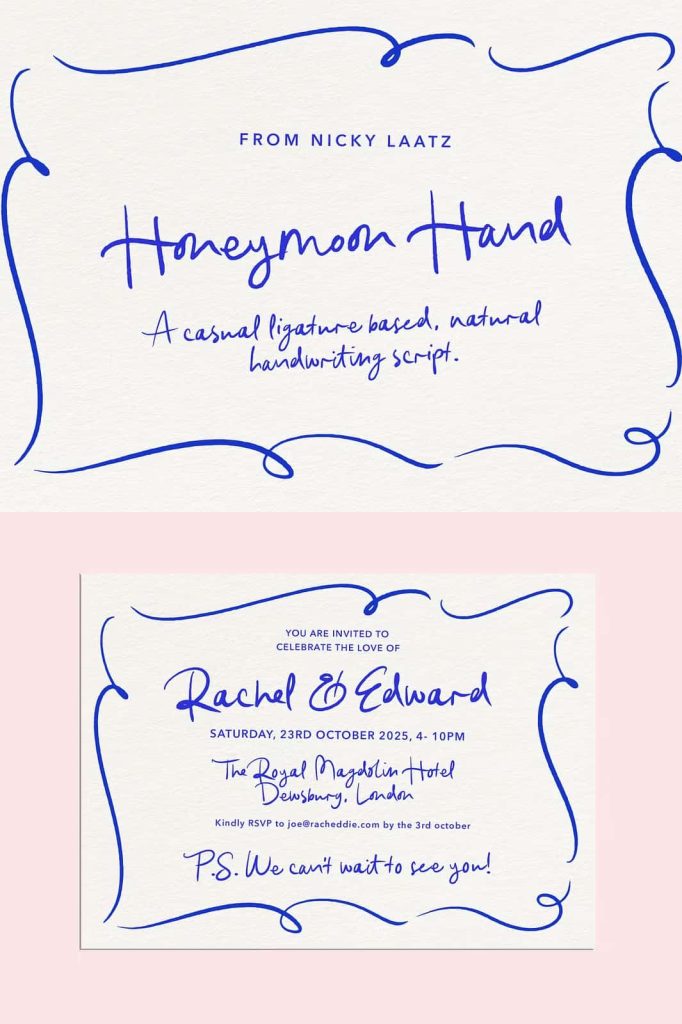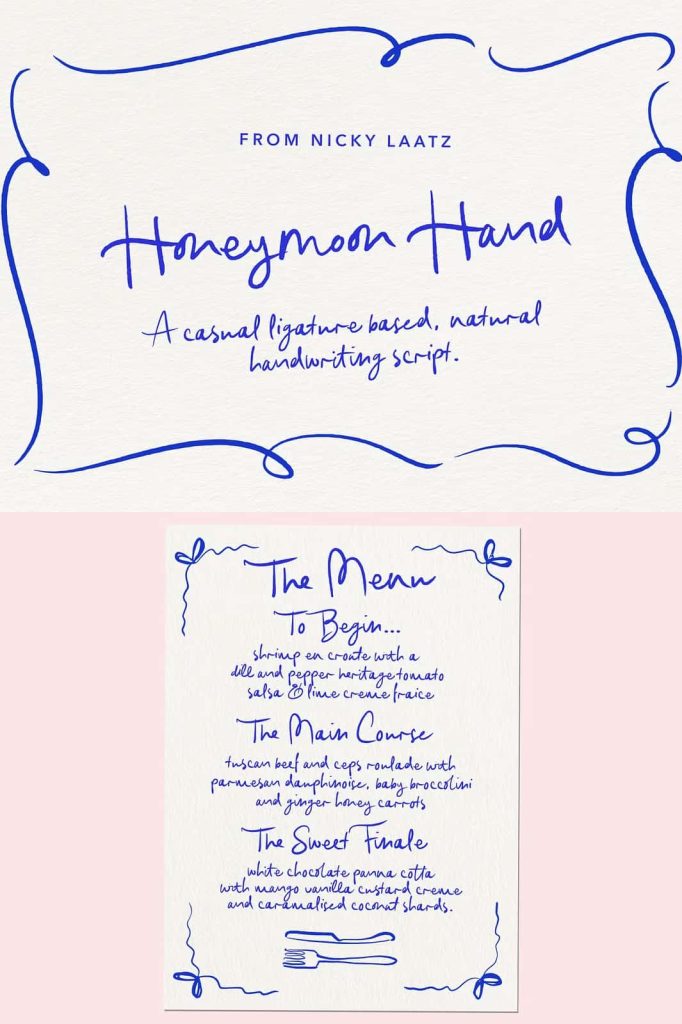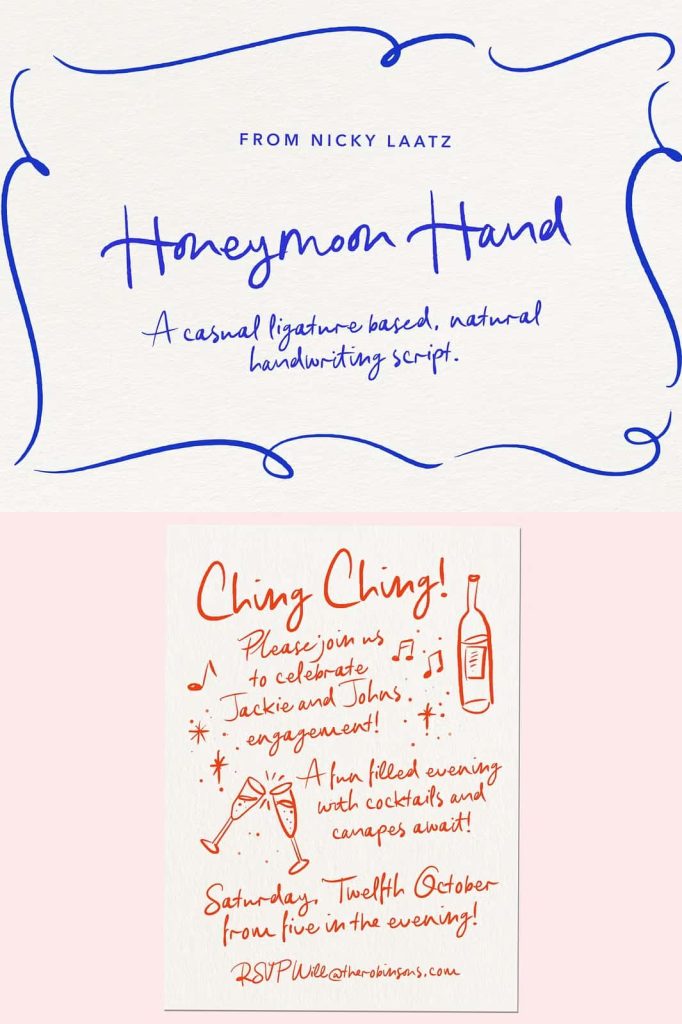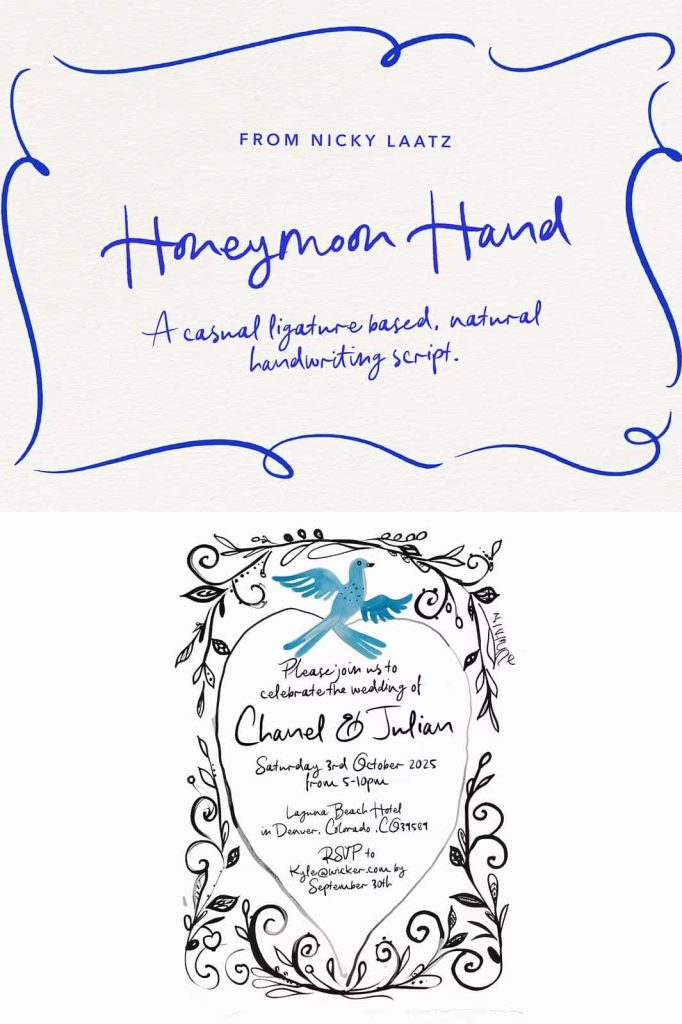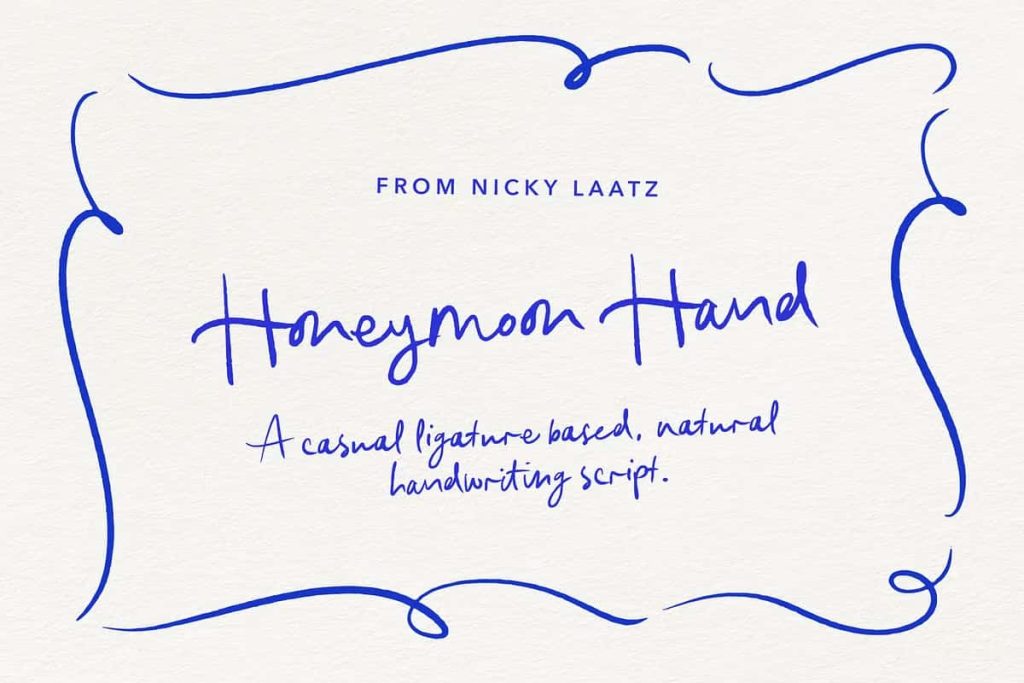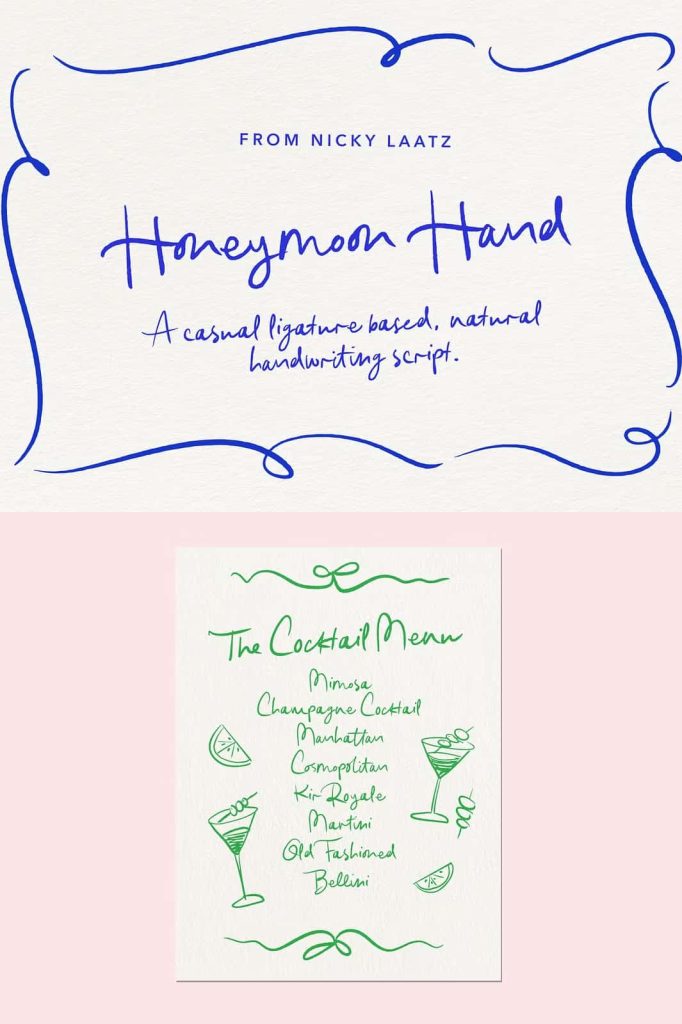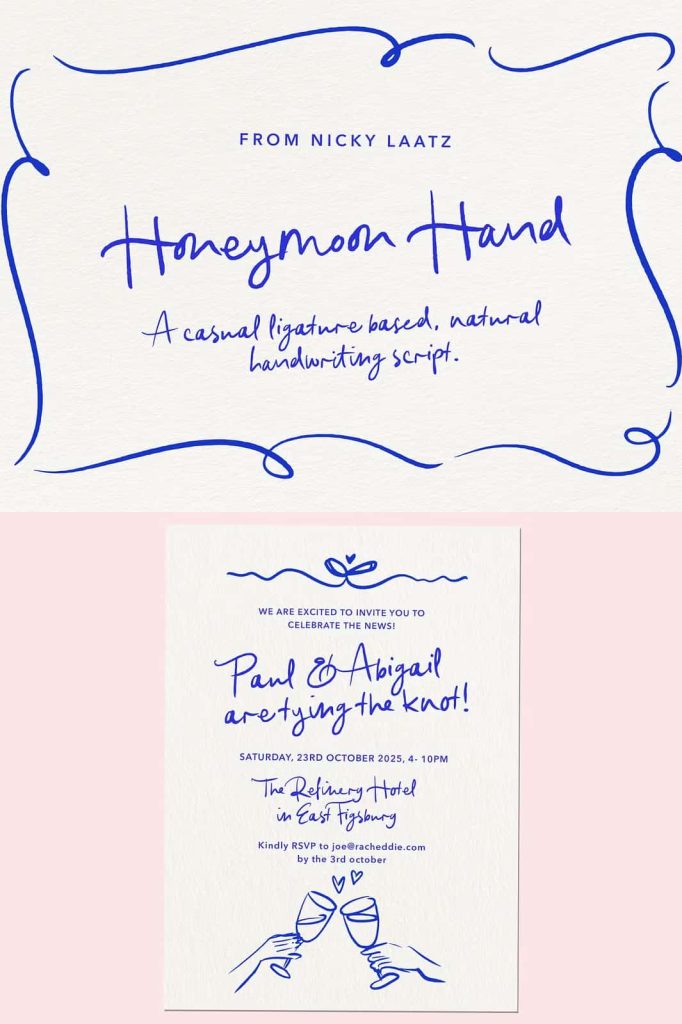
Say hello to Honeymoon Hand Script with bonus doodles! 🙂
A lighthearted and quirky handwritten script full of playful romantic whimsy, with a boat load of Opentype ligatures, to make her look ultra-natural and less like a font 🙂